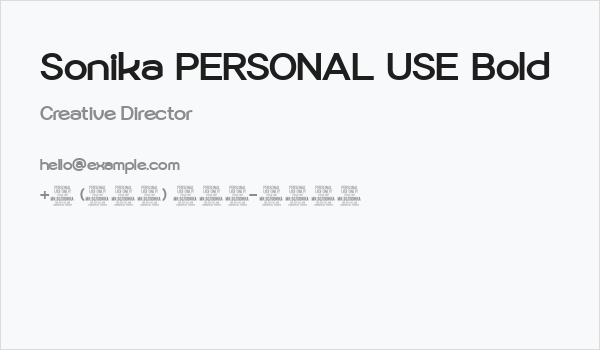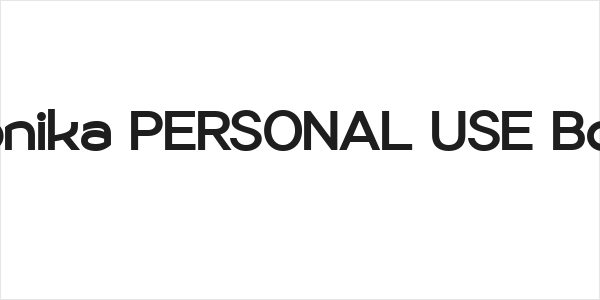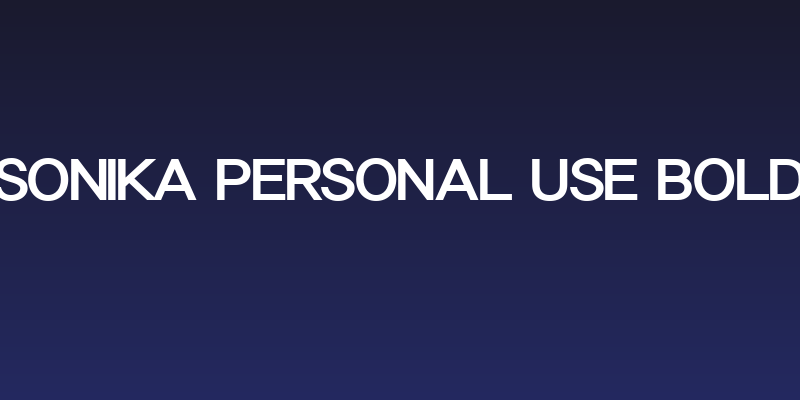
Sonika PERSONAL USE Bold Font
This font features a bold and modern sans-serif style with clean lines and a geometric structure. The uppercase and lowercase letters are well-balanced, providing a strong visual impact. The characters are designed with a uniform stroke width, contributing to a cohesive and contemporary appearance. The font includes a full set of uppercase and lowercase letters, numbers, and a variety of special characters, making it versatile for various design needs. Its boldness ensures excellent readability and presence, suitable for both digital and print media.
Proposed ProjectsIdeal for branding, advertising, headlines, posters, and digital media where a strong, modern presence is required.